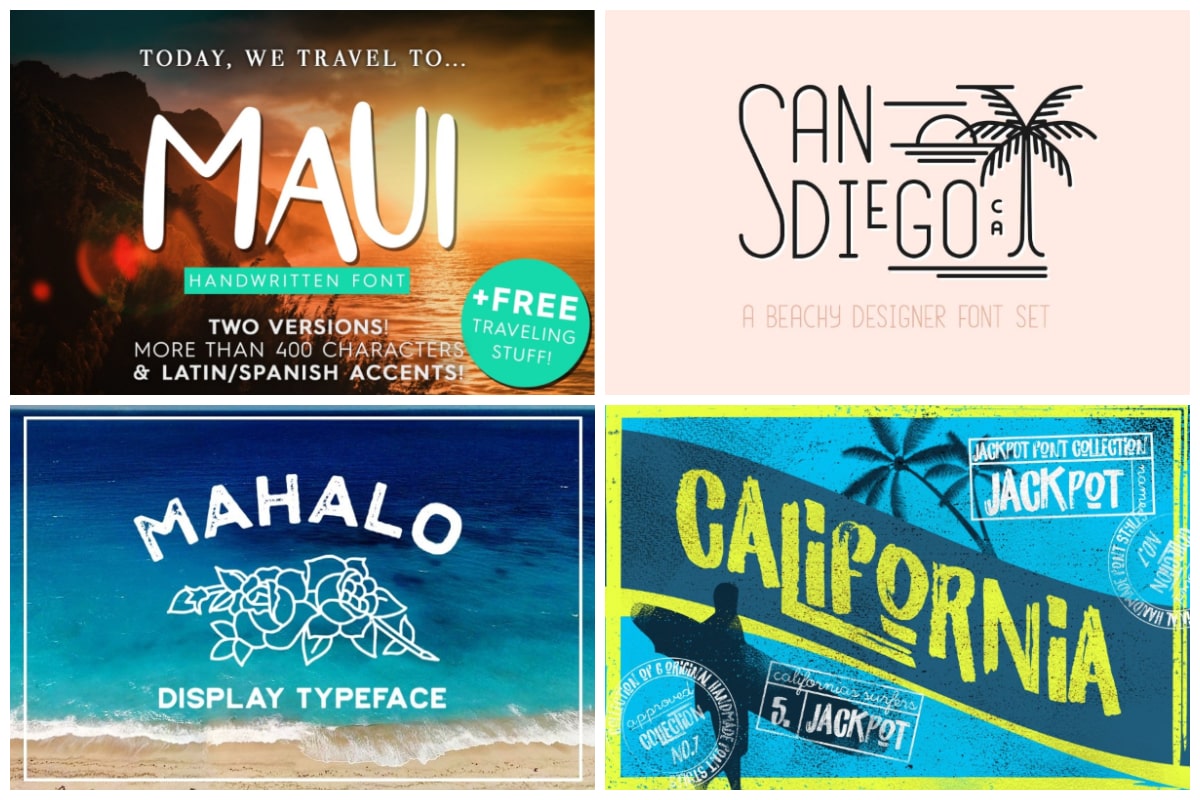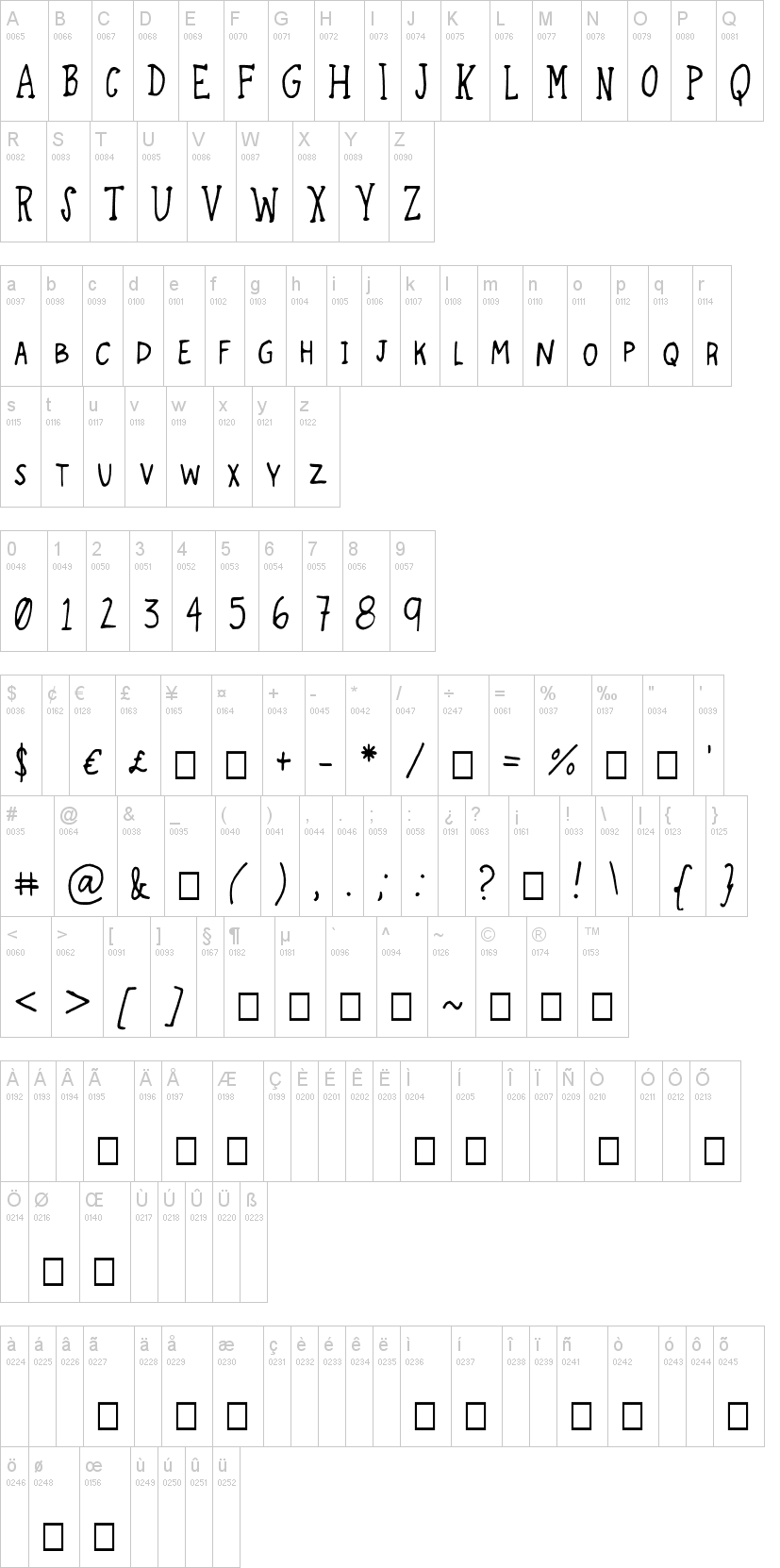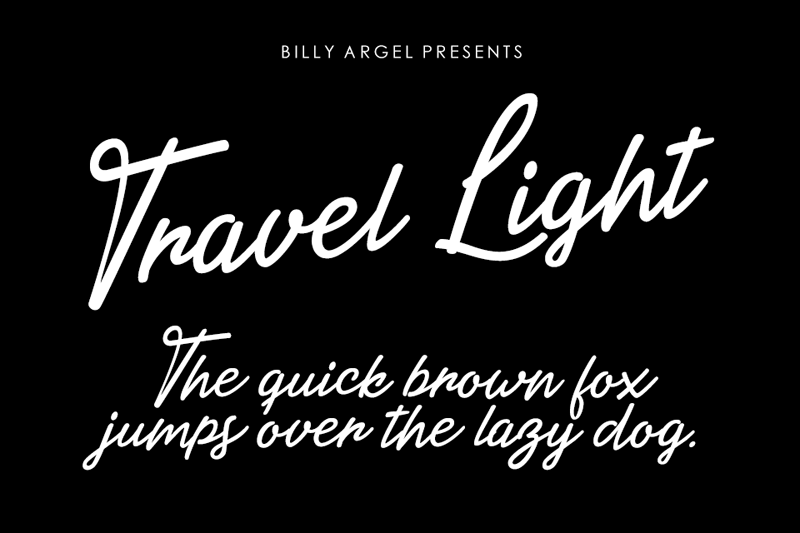
Travel Fonts Dafont
In dingbats various 517056 downloads 16 yesterday free for personal use 2 font files. Mouse deco one of our favorite travel fonts this chicago font is very versatile and works well as a strong header in your travel keepsakes and memory preserving. If you are downloading it for personal use id really appreciate if you could send whatever youve done with the font to siddharthdasari atgmail dotcom. Heres the catch the font is really great for any project with travel concepts.
With its hand drawn narrow lettering clearwater is a friendly travelers font inspired by everyones inner wanderlust. Submit a font tools. Click to find the best 91 free fonts in the travel style. Ad by md shohail bhuian.
Travelcons by iconian fonts. Then travel goals font is for you. Travel goals has a unique style that is perfect for logo and identity branding blogvlog magazines merchandise brochures and etc. The font is carefully handwritten on a paper to have the best handwriting effect on the font.
Looking for travel fonts. Size travel a by md shohail bhuian. Every font is free to download. While it is meant to be a display font this can be used as a casual body font.